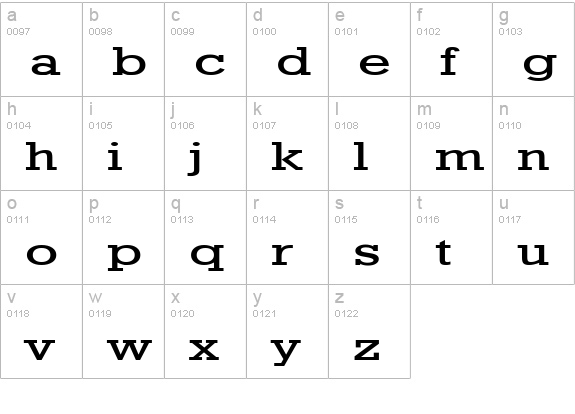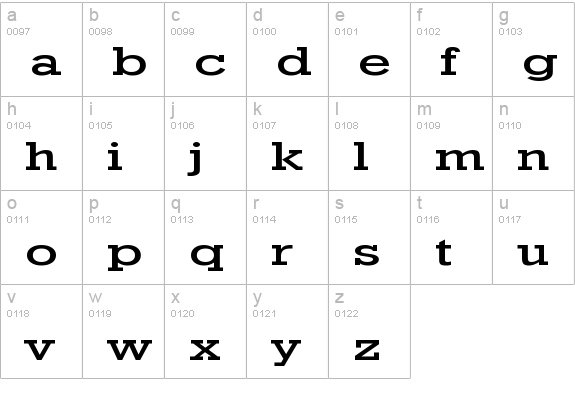
Geo 986 Extended Normal is the standard, neutral, extended-width variant in the Geo typeface family \xE2\x80\x94 well suited to general body text, paragraphs, and standard typographic work.
Introducing Geo 986 Extended Normal font, a versatile typeface that combines modern style with classic elegance. With its extended characters and clean lines, this font is perfect for a wide range of design projects, from branding to editorial design. One of the best features of Geo 986 Extended Normal font is that it is completely free to download. You can easily access this beautifully crafted font at FontsMarket.com, where you can explore a wide selection of high-quality fonts for your creative endeavors. Whether you're working on a website, a logo, or a print design, Geo 986 Extended Normal font will add a touch of sophistication and professionalism to your projects. Don't miss out on the opportunity to enhance your designs with this stunning font, available for free download at FontsMarket.com.